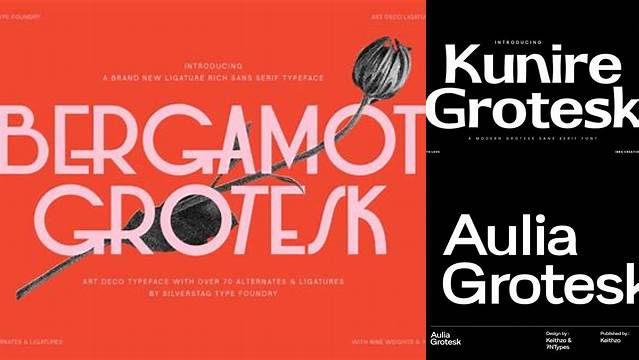
Understanding Grotesk Fonts
First things first, what exactly are grotesk fonts? Think of them as the cool, no-frills siblings of the font family. Grotesk fonts are a type of sans-serif font, known for their simple, clean, and often geometric designs. They were super popular back in the 19th century and have seen a massive resurgence in modern design. The name "grotesk" itself comes from the German word, which means "grotesque" or "ugly," but don't let that scare you! The name came about because, at the time they were created, these fonts were a departure from the ornate typefaces that were popular, but they quickly became a symbol of modernity and efficiency. Grotesk fonts are all about readability and clarity, making them ideal for a wide range of uses, from website headings and body text to branding materials and advertising campaigns. They're incredibly versatile and can convey a sense of both professionalism and modernity. These fonts typically feature consistent stroke weights, minimal ornamentation, and a straightforward design that makes them easy to read at various sizes. This makes them a solid choice for both print and digital media, ensuring your message is clear and engaging. Grotesk fonts are often used in logos, posters, and website designs because of their ability to grab attention without being overly flashy. They can also be paired with more decorative fonts to add contrast and visual interest to a design. Ultimately, the goal of a grotesk font is to provide clean and accessible typography, allowing your audience to focus on the content rather than being distracted by elaborate font styles. In essence, they're all about function meeting form.
Tips for Using Grotesk Fonts Effectively
So, you've got your free grotesk fonts downloaded – awesome! Now, how do you use them to make your designs pop? Here are some tips and tricks:
- Choose the Right Font: Different grotesk fonts have different personalities. Some are bold and impactful, while others are more subtle and refined. Consider the tone and message of your project when selecting a font. Is it a serious business presentation, or a fun and playful advertisement? Match the font to the mood.
- Pair with Complementary Fonts: Grotesk fonts work beautifully with other font styles. You can pair them with a serif font for body text to create contrast and improve readability. They also look great with handwritten or script fonts for headlines to add a touch of personality. This can help you create a diverse and interesting design.
- Consider Hierarchy: Use different font weights and sizes to create a visual hierarchy. Use bolder weights for headlines and subheadings, and lighter weights for body text. This guides the reader's eye and helps them understand the information in a clear order.
- Spacing Matters: Pay close attention to the kerning (the space between individual letters), leading (the space between lines), and tracking (the space between all letters in a block of text). Proper spacing is crucial for readability. Avoid overcrowding your text. Give your words and letters room to breathe.
- Test in Different Contexts: Before you commit to a font, test it in various applications. See how it looks on a website, in a print document, or in a logo. Make sure the font is legible at different sizes and on different backgrounds. Test the font in various mediums to ensure it looks its best in every instance.